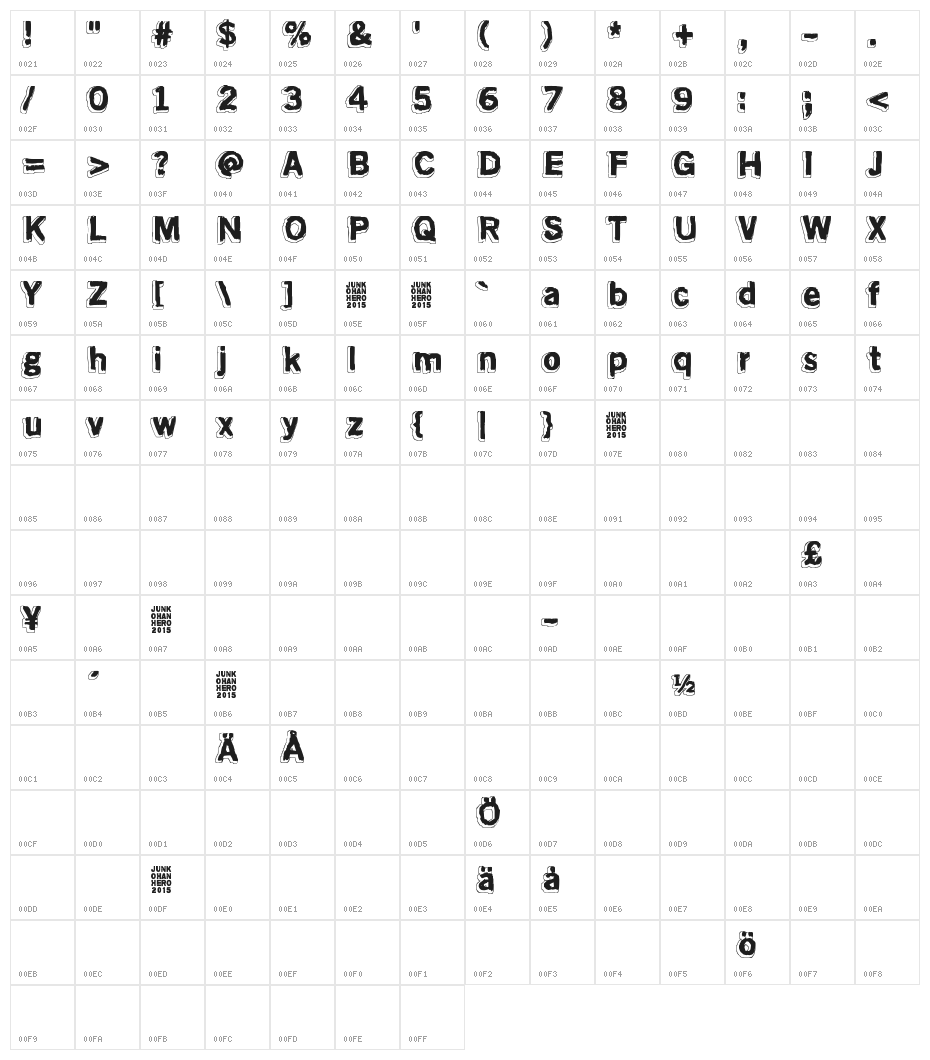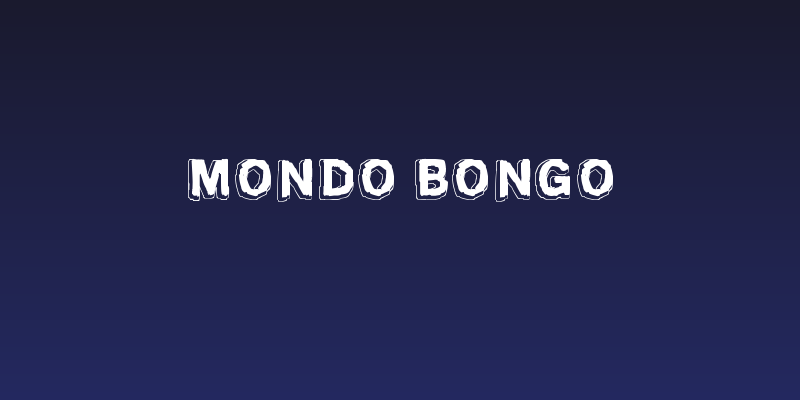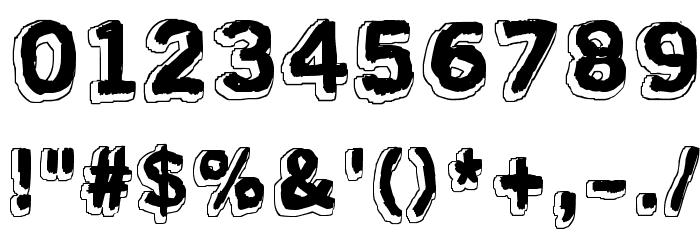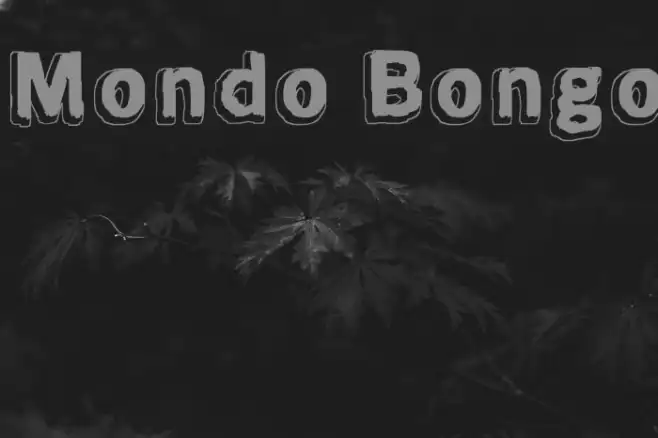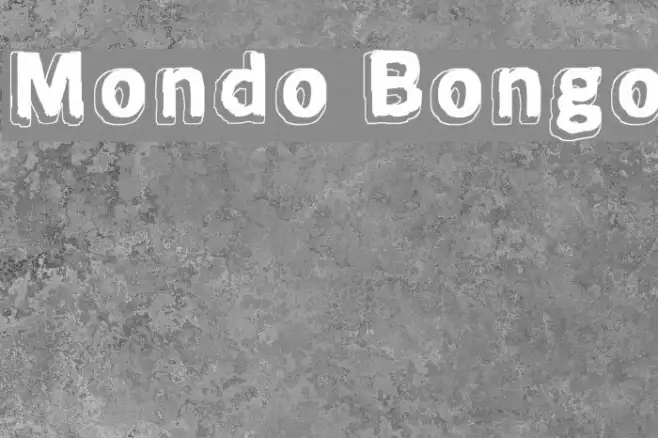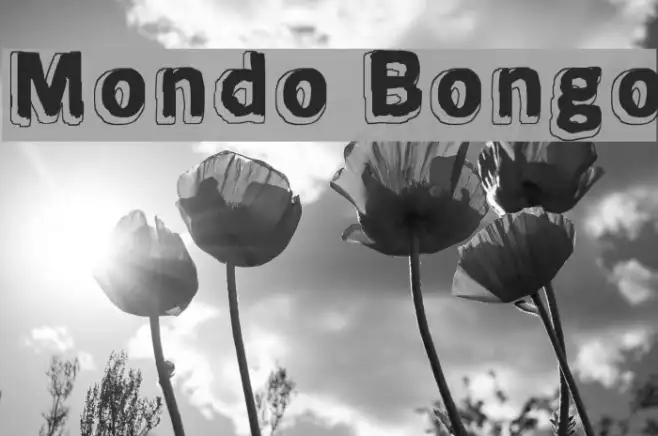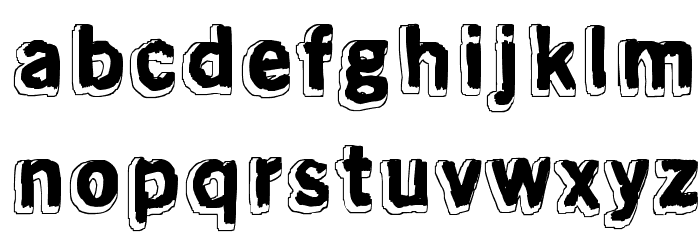
Mondo Bongo Font
Mondo Bongo Description
This font features a bold, playful style with a hand-drawn appearance. The characters have a thick, uneven outline that gives them a three-dimensional look, reminiscent of comic book lettering. The uppercase and lowercase letters maintain a consistent style, with rounded edges and a slightly irregular form that adds to the casual, fun aesthetic. Numbers and special characters follow the same design principles, ensuring a cohesive look across all glyphs. The font's unique style makes it stand out, making it ideal for projects that require a touch of whimsy and creativity.
| Overall Style | Playful, Comic |
| Proposed Projects | Ideal for comic books, children's books, playful branding, and creative posters. |